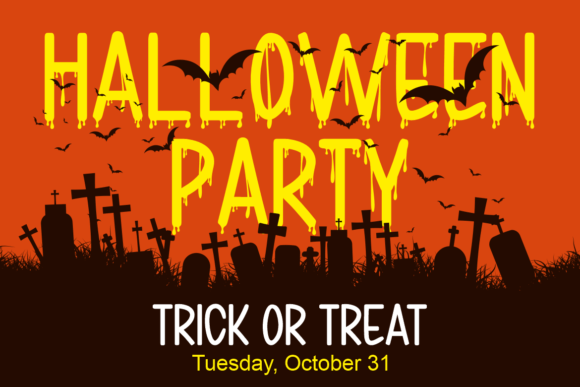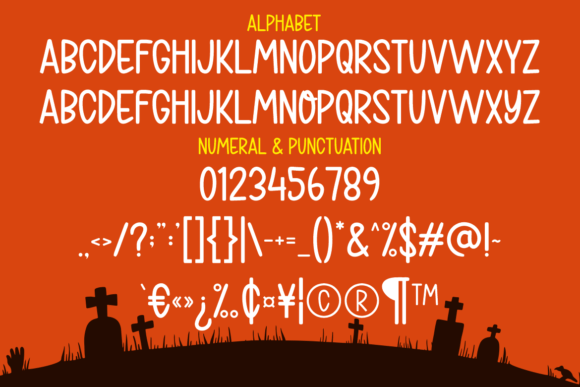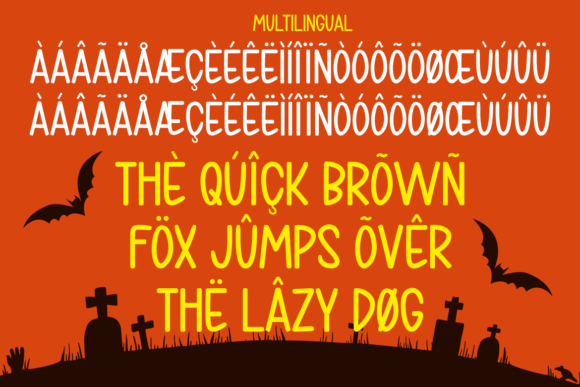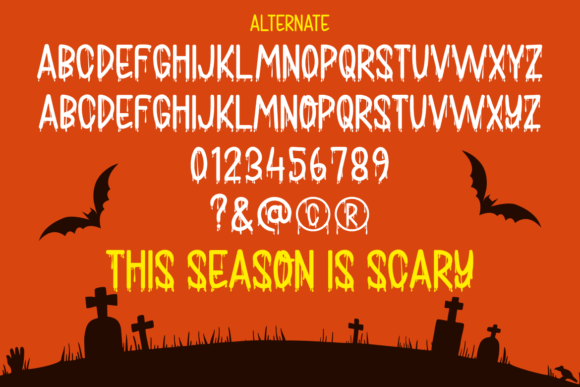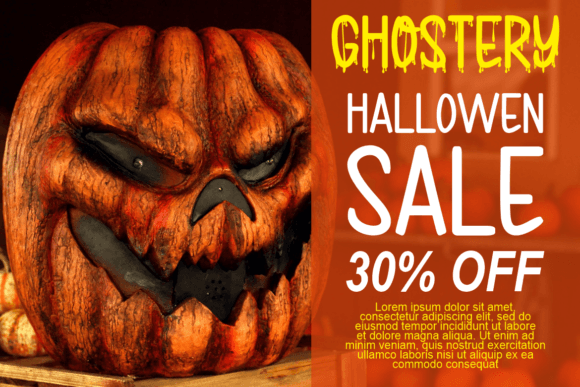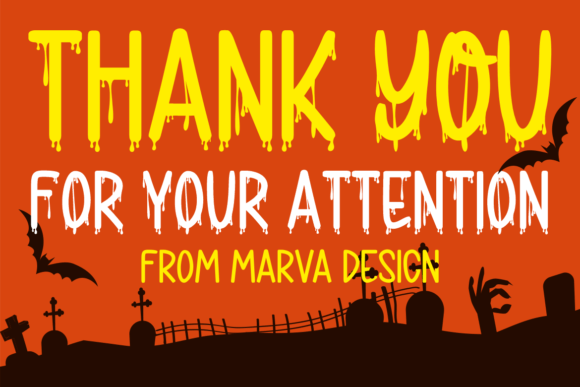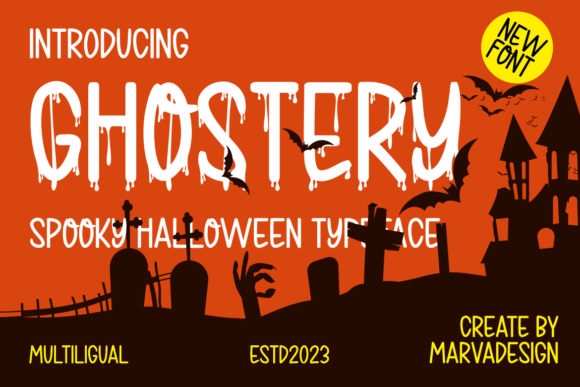
Unleash the Spooky Charm with Ghostery Font: The Ultimate Display Font for Halloween and Beyond
Are you a designer or crafter looking for a font that can add a touch of the supernatural to your projects? Look no further than Ghostery Font, a fun and spooky display font that is sure to give your designs an eerie and mysterious feel. In this article, we’ll dive into the world of Ghostery Font, exploring its unique features, uses, and benefits, and why it’s the perfect choice for Halloween-themed projects and beyond.
The Spooky Charm of Ghostery Font
Ghostery Font is a display font like no other. Its dripping letters seem to ooze with a spooky vibe, perfect for adding a touch of horror and mystery to your designs. Each letter is carefully crafted to evoke a sense of eeriness, making it an ideal choice for Halloween-themed projects, horror movie posters, and even haunted house invitations.
But Ghostery Font is more than just a one-trick pony. Its versatility makes it suitable for a wide range of design projects, from creepy crafts to eerie event branding. Whether you’re designing a flyer for a spooky party or creating a logo for a haunted attraction, Ghostery Font is sure to add a touch of the supernatural to your work.
Unique Features of Ghostery Font
So, what sets Ghostery Font apart from other display fonts? Here are a few of its unique features:
- Dripping Letters: Each letter in Ghostery Font has a dripping effect, giving it a spooky and eerie feel.
- Spooky Vibe: The font’s design is carefully crafted to evoke a sense of horror and mystery.
- High-Quality Design: Ghostery Font is designed with high-quality vectors, making it perfect for large and small designs alike.
Uses of Ghostery Font
Ghostery Font is a versatile font that can be used in a wide range of design projects, including:
- Halloween-themed Projects: From party invitations to haunted house branding, Ghostery Font is perfect for adding a touch of spookiness to your Halloween designs.
- Horror Movie Posters: Create eye-catching horror movie posters with Ghostery Font, adding a touch of eeriness to your design.
- Creepy Crafts: Use Ghostery Font to add a spooky touch to your crafts, from DIY decorations to handmade cards.
- Eerie Event Branding: Create a spooky atmosphere for your events with Ghostery Font, perfect for haunted attractions, horror movie screenings, and more.
Benefits of Using Ghostery Font
So, why choose Ghostery Font for your design projects? Here are a few benefits:
- Adds a Touch of the Supernatural: Ghostery Font is designed to evoke a sense of horror and mystery, adding a touch of the supernatural to your designs.
- Increases Engagement: The font’s spooky vibe is sure to grab attention and increase engagement with your audience.
- Versatile: Ghostery Font can be used in a wide range of design projects, from Halloween-themed projects to horror movie posters.
In conclusion, Ghostery Font is a fun and spooky display font that is sure to add a touch of the supernatural to your designs. With its unique features, versatility, and benefits, it’s the perfect choice for Halloween-themed projects, horror movie posters, creepy crafts, and eerie event branding. So, why wait? Download Ghostery Font today and unleash the spooky charm in your designs!